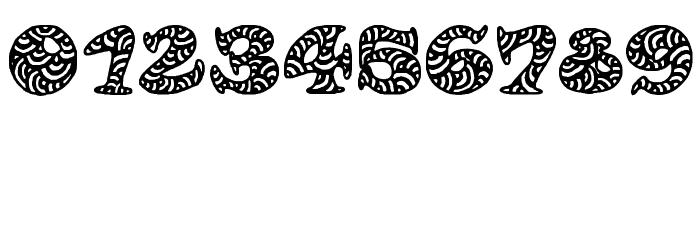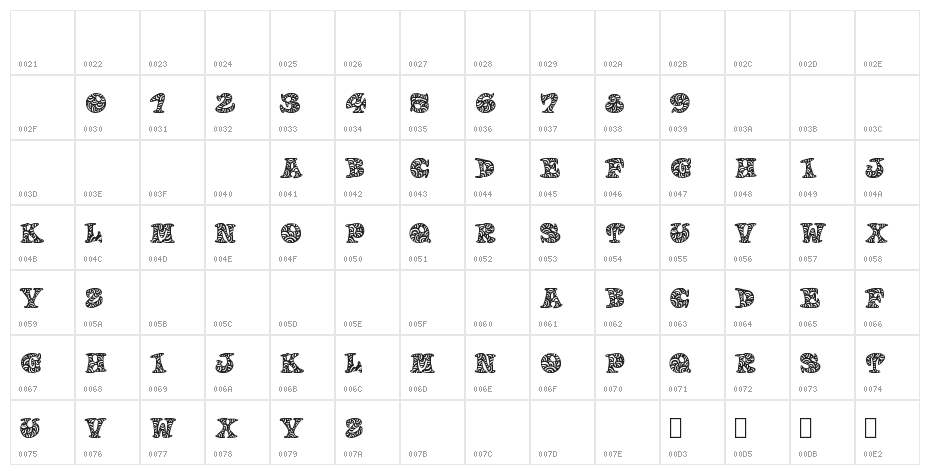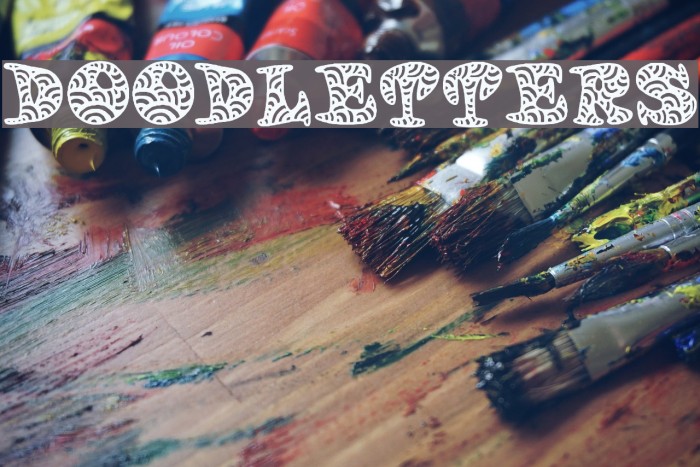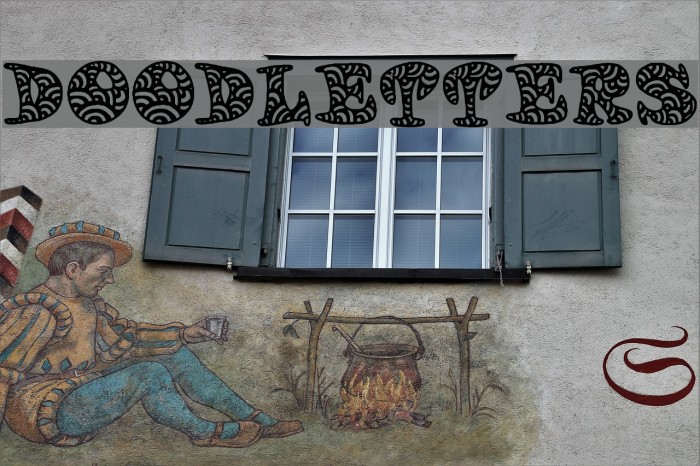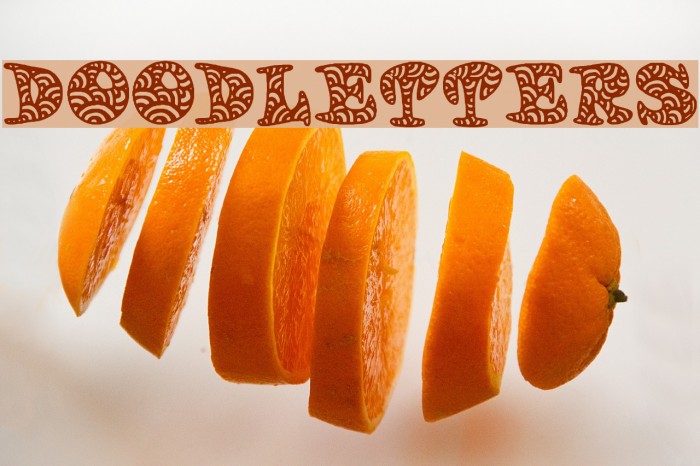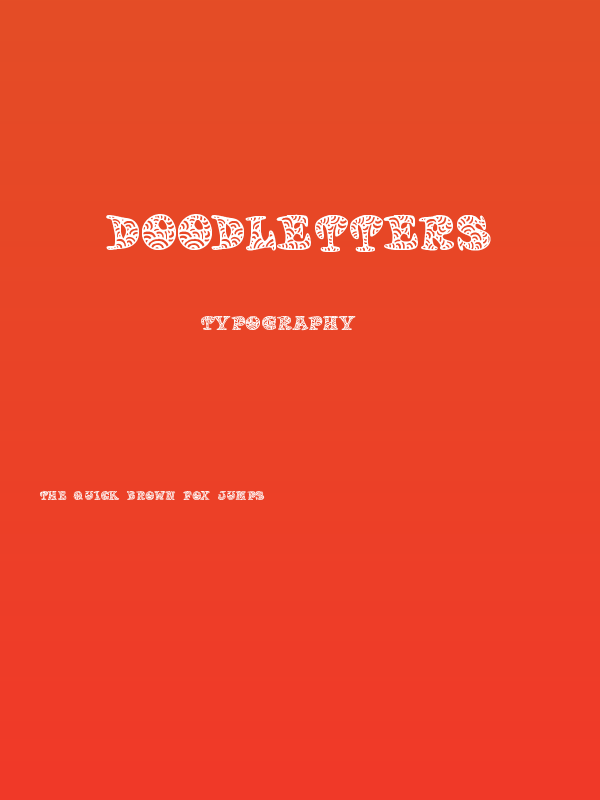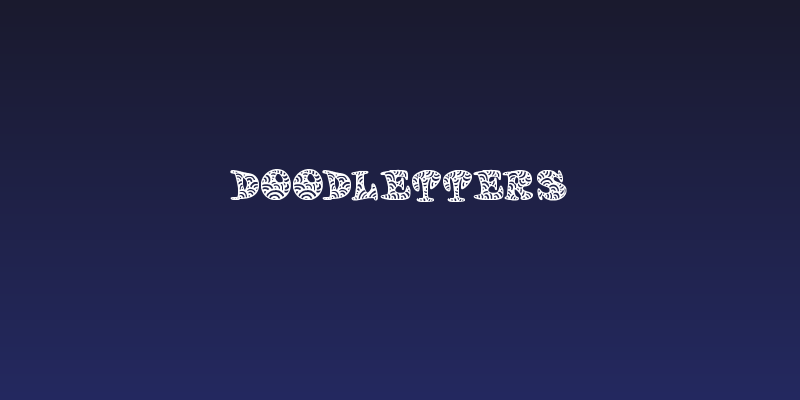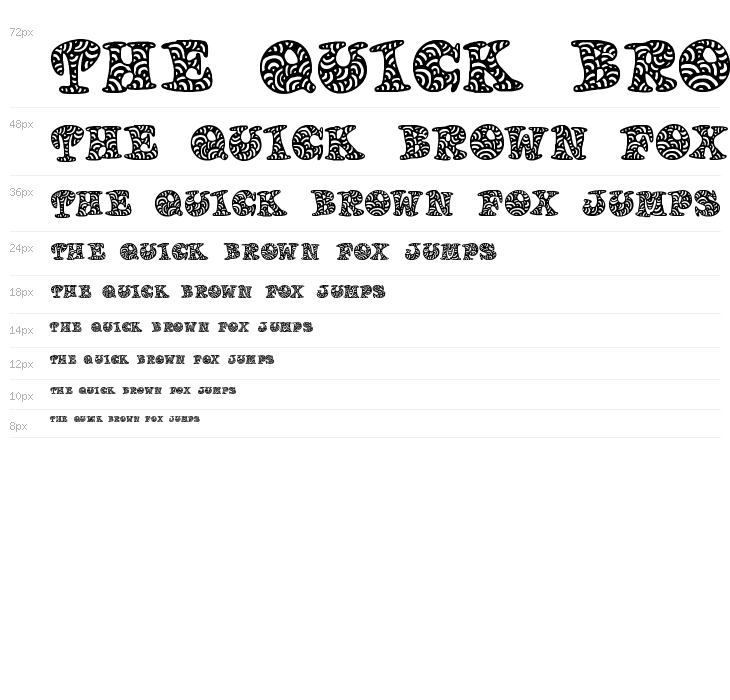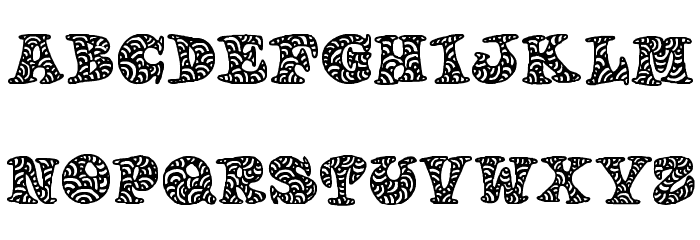
Doodletters Font
Doodletters Description
This font features an intricate, decorative design with swirling, doodle-like patterns filling each character. The letters are bold and eye-catching, making them ideal for creative and artistic projects. Each character is uniquely styled with a playful and whimsical touch, adding a sense of fun and creativity. The font maintains a consistent pattern throughout, ensuring a cohesive look across all characters. Its decorative nature makes it stand out, perfect for projects that require a distinctive and artistic flair. The font is best suited for headlines, posters, and other display purposes where its intricate details can be appreciated.
| Proposed Projects | Ideal for posters, headlines, artistic designs, and creative branding projects. |